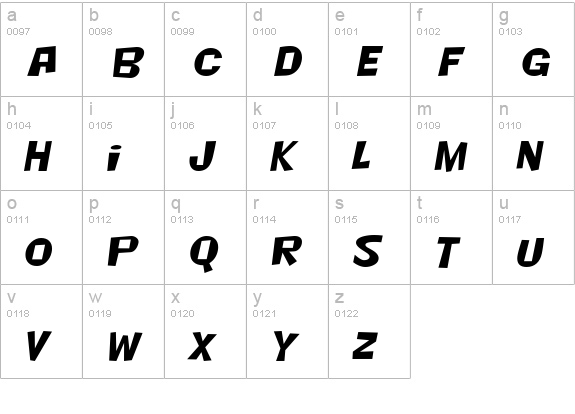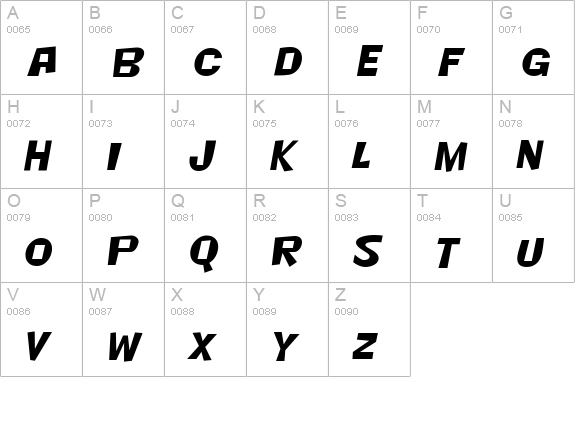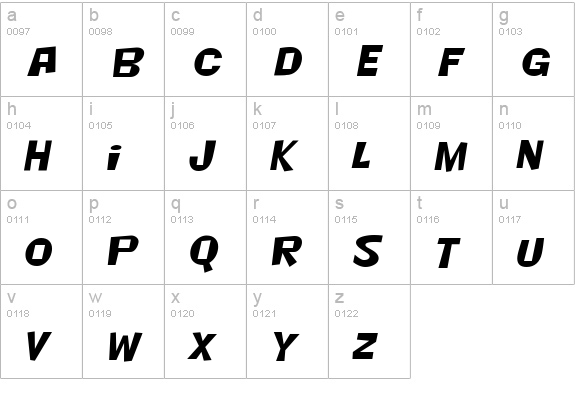
Nightclub BTN Oblique Font Details
Nightclub BTN Oblique is a distinctive, italic variant in the Nightclub typeface family \xE2\x80\x94 well suited to design and typography projects.
Nightclub BTN Oblique font is a stylish and modern typeface that exudes sophistication and charm. With its sleek design and slanted appearance, this font is perfect for adding a touch of elegance to any project. Whether you're creating invitations, posters, or branding materials, Nightclub BTN Oblique font will elevate your design to the next level. The best part? Nightclub BTN Oblique font is available for free download at FontsMarket.com. Simply head over to the website and download this fabulous font to use in your projects without any cost. Don't miss out on the opportunity to enhance your designs with the alluring Nightclub BTN Oblique font today!